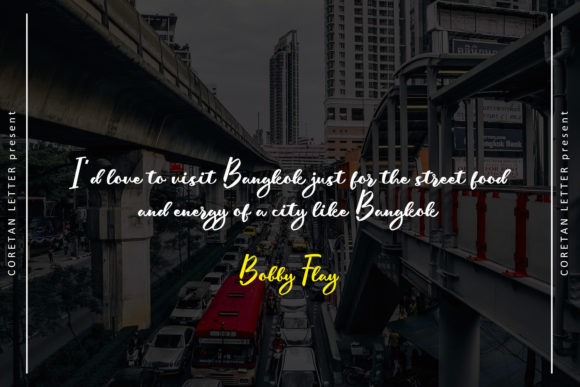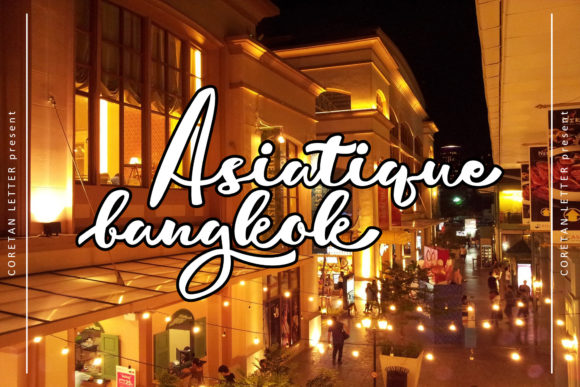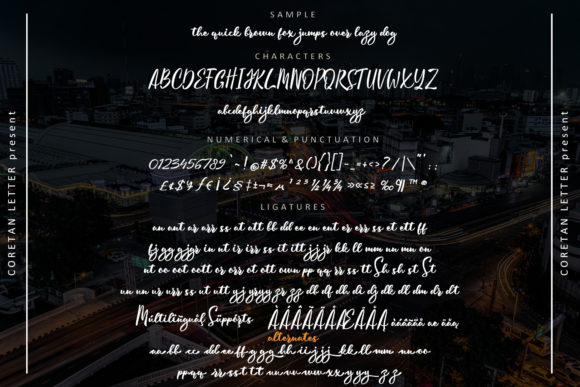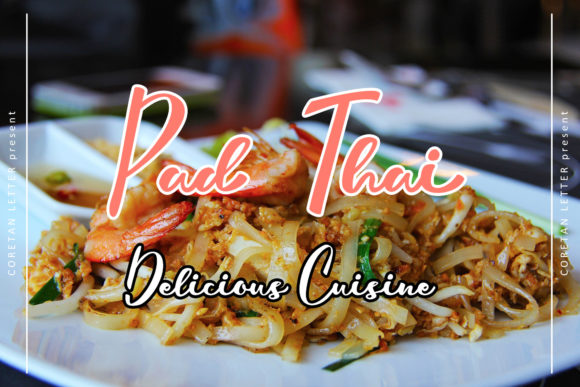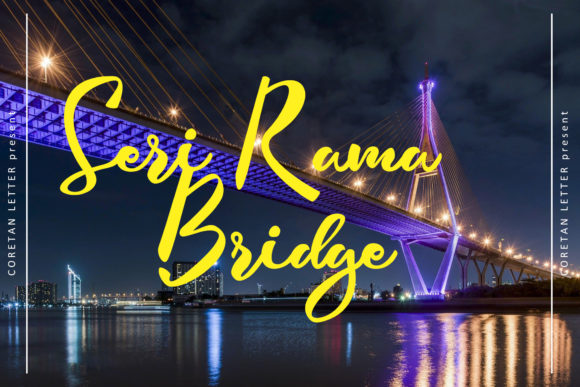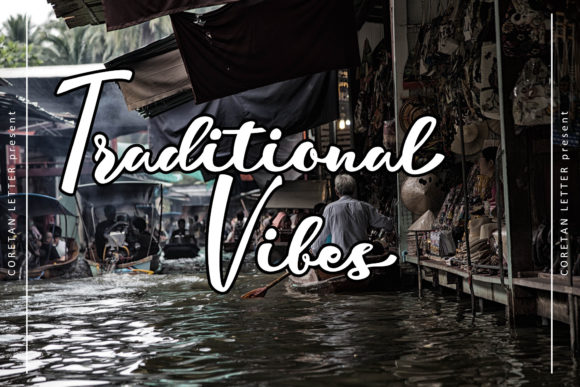
Bangkok Riverside Font
About Bangkok Riverside Font
Bangkok Riverside is a thick lettered and cursive handwritten font. This font reads as strong, confident, and dynamic and can add tons of nostalgic character to your designs.